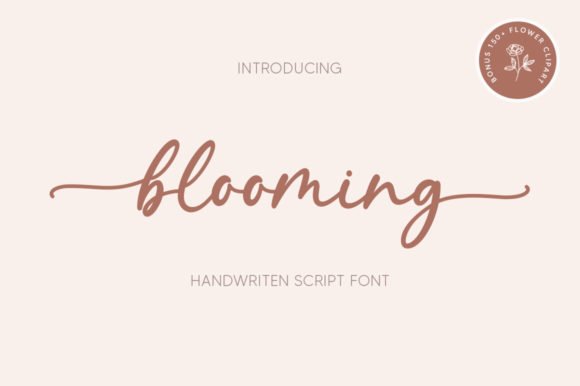
The Art of Elegant Typography
Have you ever found yourself lost in the world of fonts, searching for the perfect script to elevate your design project? I know I have. It was during one such moment of frustration that I stumbled upon the Blooming Font, a game-changer in the world of typography.
The Blooming Font is a delicate and lovely script font that exudes elegance and sophistication. With its PUA encoding, designers can easily access all glyphs and swashes, making it a valuable tool for creating unique and captivating designs. Whether you’re working on a wedding invitation, a branding project, or a social media campaign, this font is sure to add a touch of class and refinement to your work.
Blooming Font Key Features
- Unique Characteristics: Blooming Font features a unique, hand-drawn design with intricate details and subtle texture, giving it a distinctive and elegant appearance.
- Stylistic Sets: Blooming Font includes multiple stylistic sets, allowing designers to customize the font’s appearance and create unique variations for different design applications.
- Kerning and Ligatures: The font features advanced kerning and ligature tables, ensuring smooth and seamless text rendering, even at small font sizes.
Blooming Font Review
Overall, I found Blooming Font to be a visually appealing and elegant font, perfect for floral-inspired designs or projects that need a touch of whimsy ✨. The flowing curves and subtle texture add a unique character to any text.
- Delicate, intricate design that’s perfect for floral or nature-inspired themes ✨
- Lots of customization options for adjusting size, color, and spacing ✨
- Works well in both digital and print formats ✨
However, I did encounter a few limitations that prevented me from giving it a perfect score ⚠️:
- Limited character set, which can be a problem for longer texts ⚠️
- Not ideal for bold or large font sizes, as it can become difficult to read ⚠️
- May not be suitable for projects that require a high level of legibility ⚠️
Despite these limitations, I would still recommend Blooming Font for the right projects. If you’re looking for a beautiful, elegant font that adds a touch of whimsy to your design, Blooming Font is a great choice. Just be aware of its limitations and use it accordingly.
The Blooming Font is ideal for:
1. Creating a visually appealing heading or title.
2. Designing a unique and eye-catching logo or graphic.
3. Enhancing the design of a presentation or document.